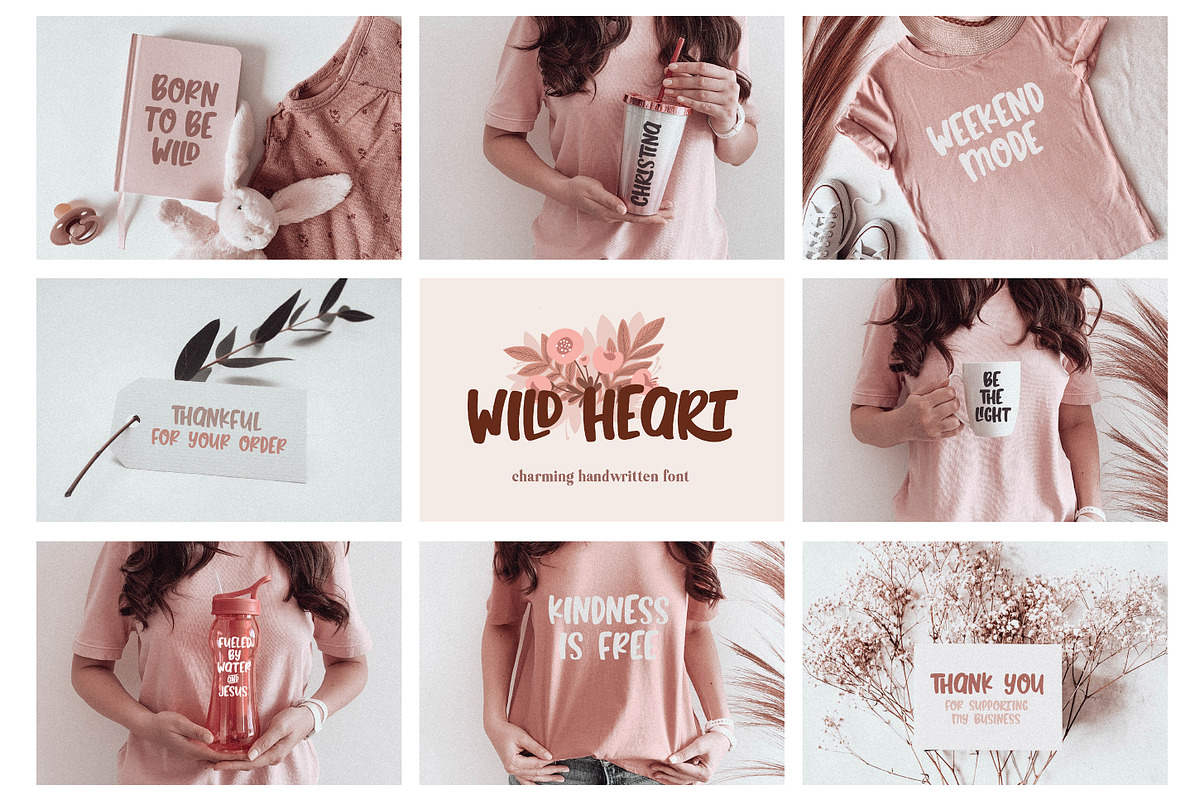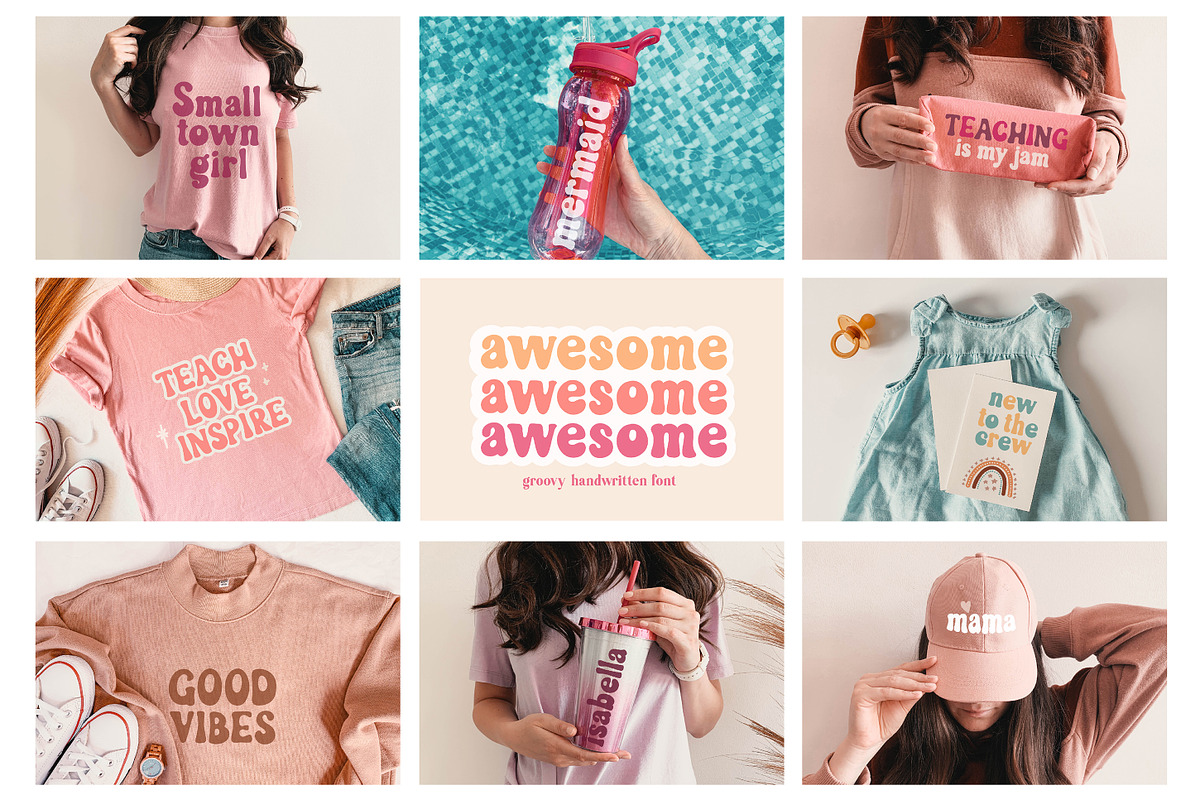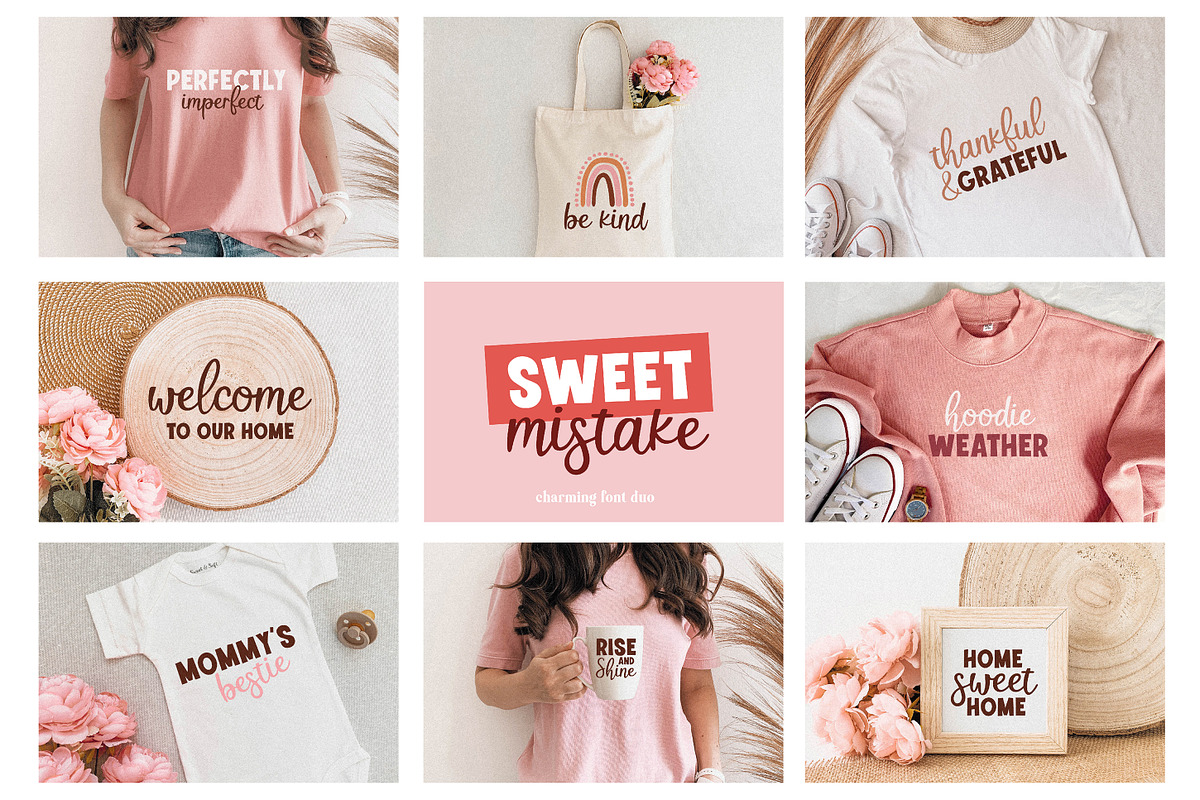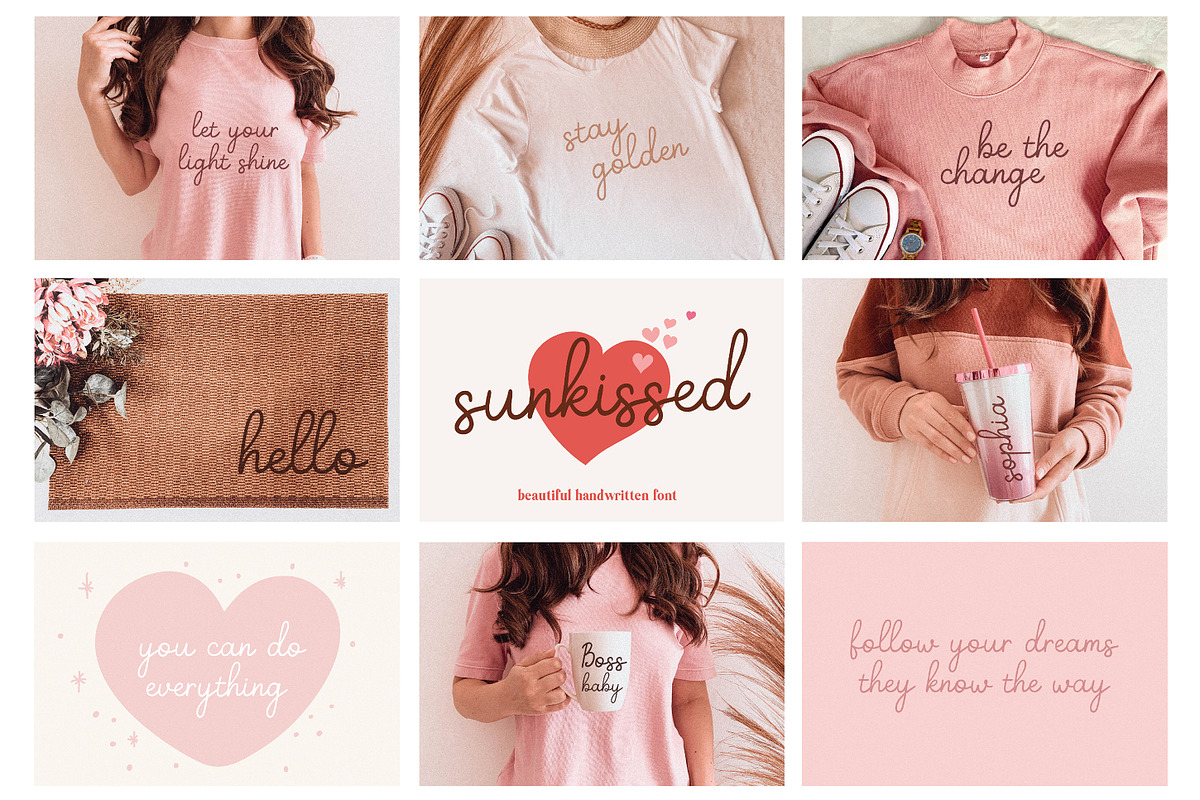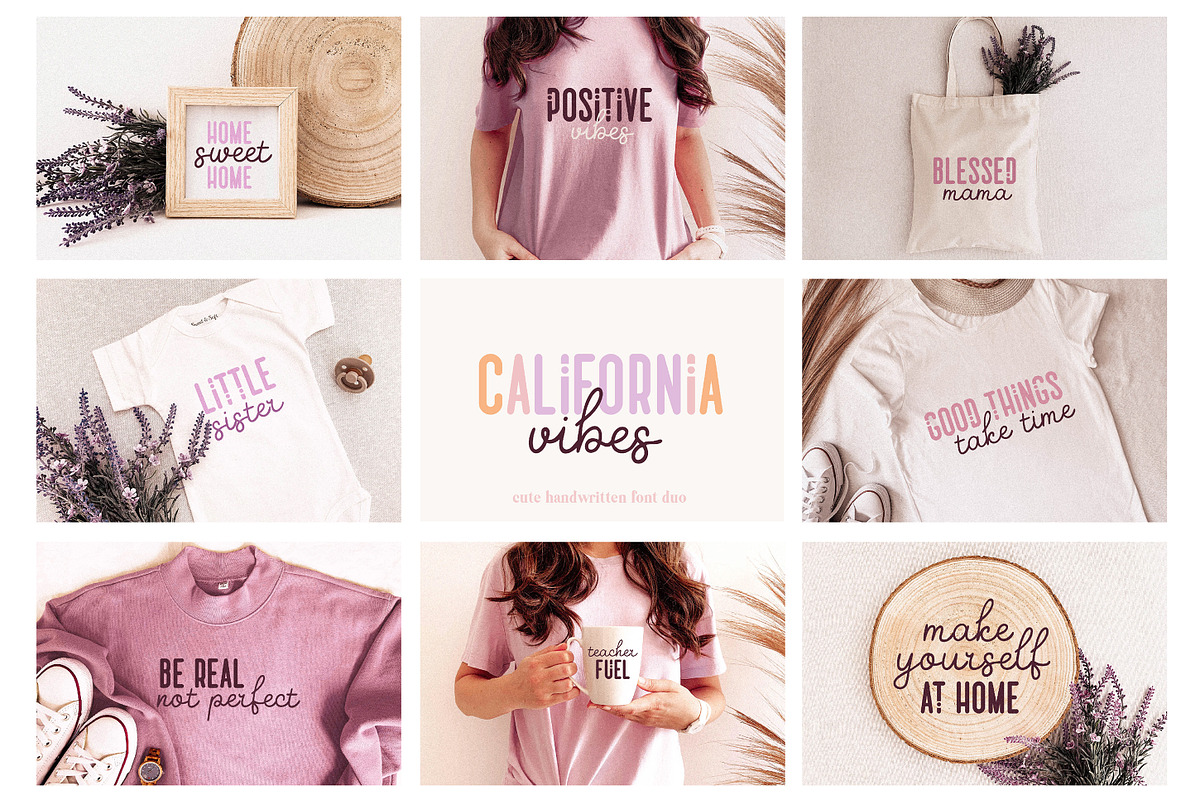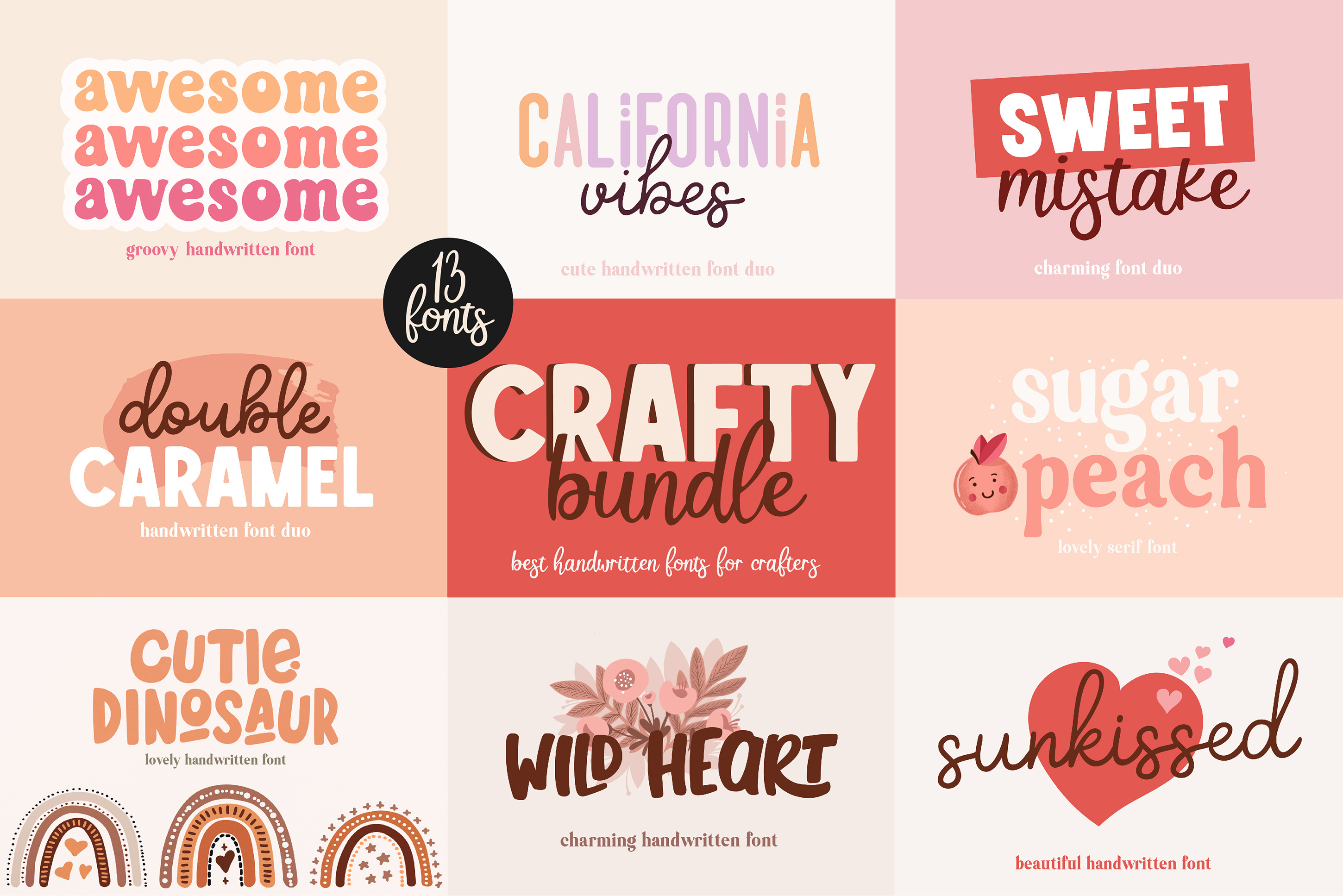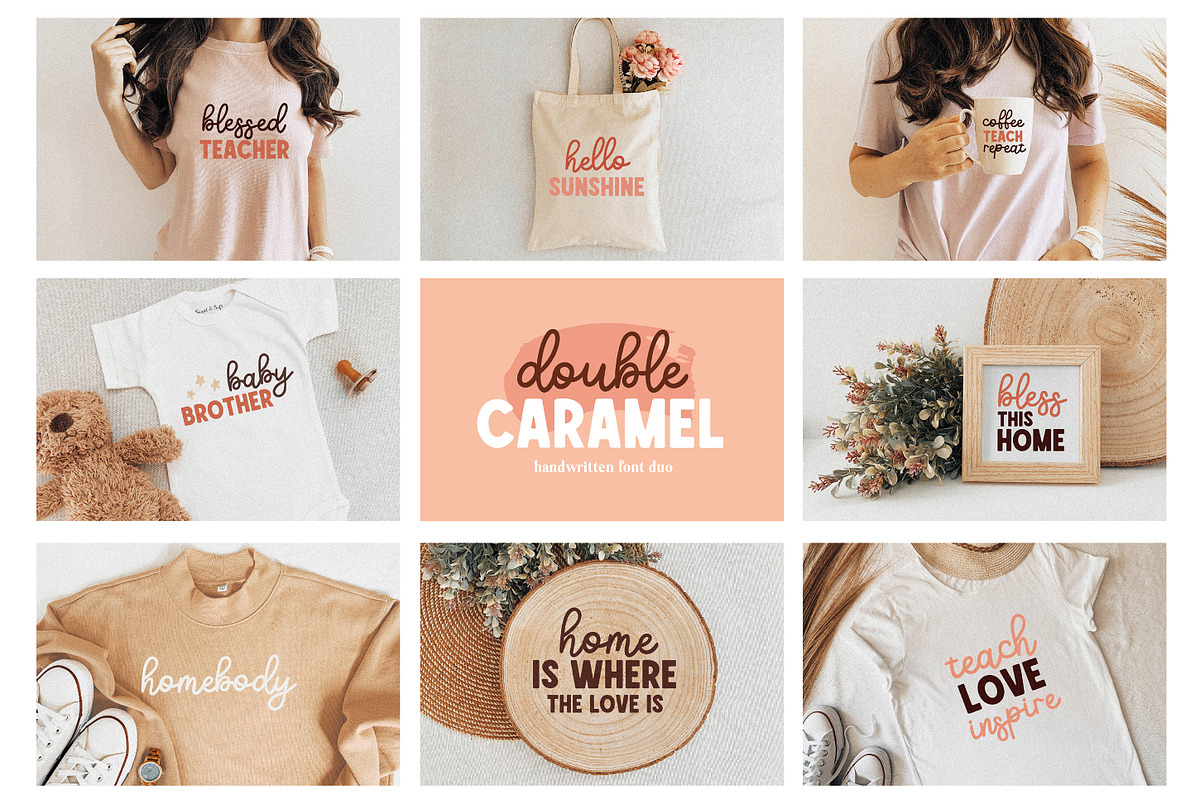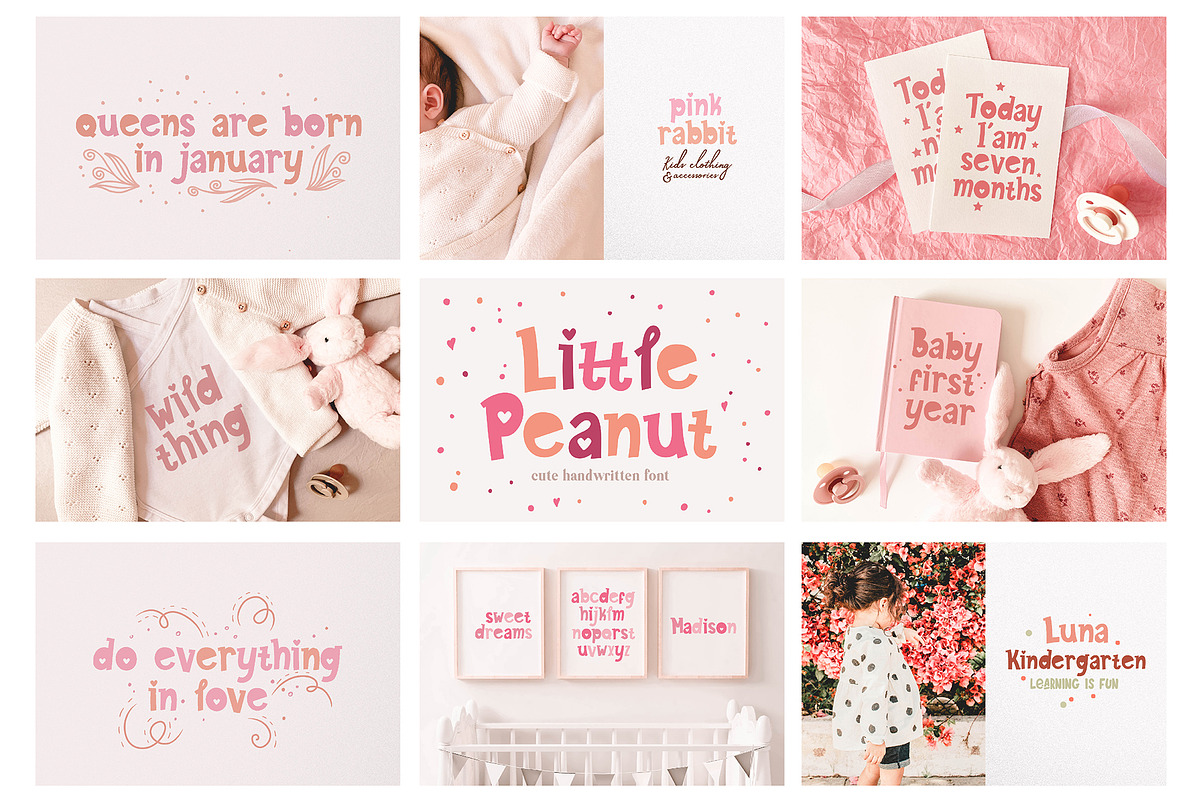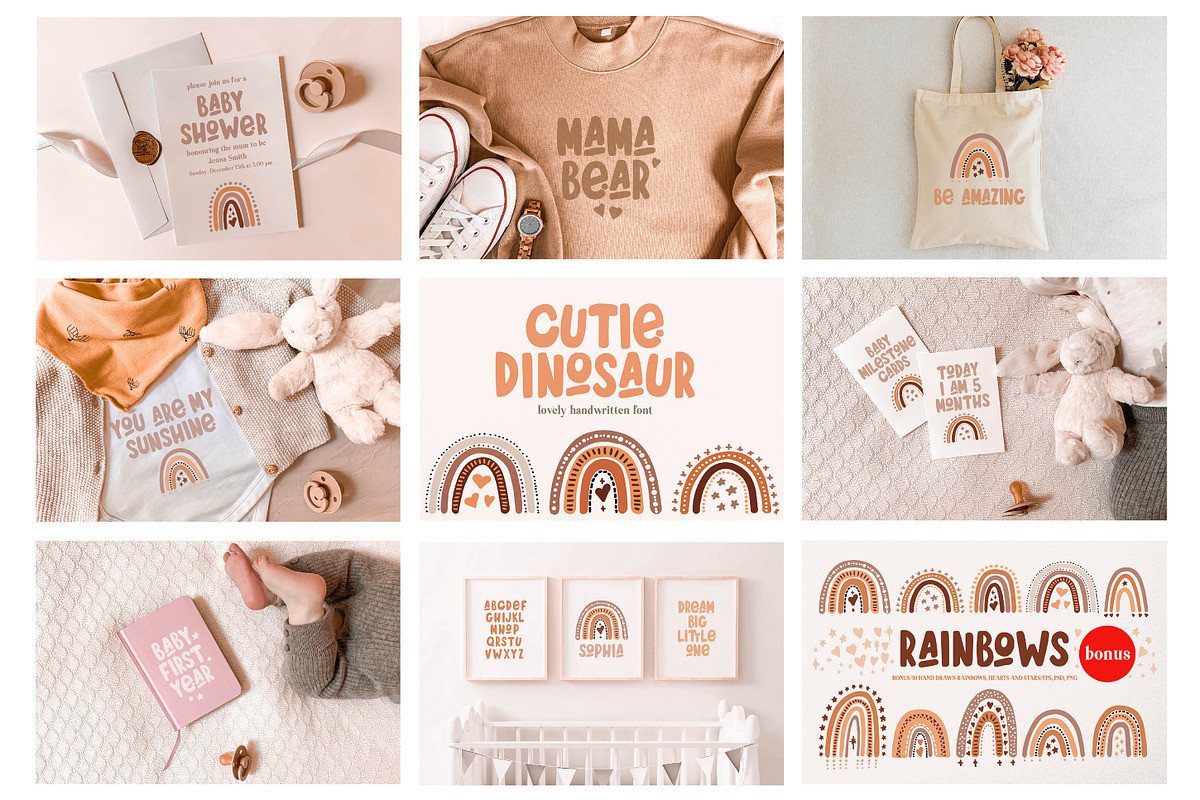
Crafty Bundle - 13 Handwritten Fonts
Crafty Bundle a cute 13 handwritten fonts for crafters and designers.
- Double Caramel Font Duo
- Sweet Mistake Font Duo
- California vibes Font Duo
- Cutie Dinosaur
- Sugar Peach
- Happy Bunny
- Sunkissed
- Wild Heart
- Awesome
- Little Peanut